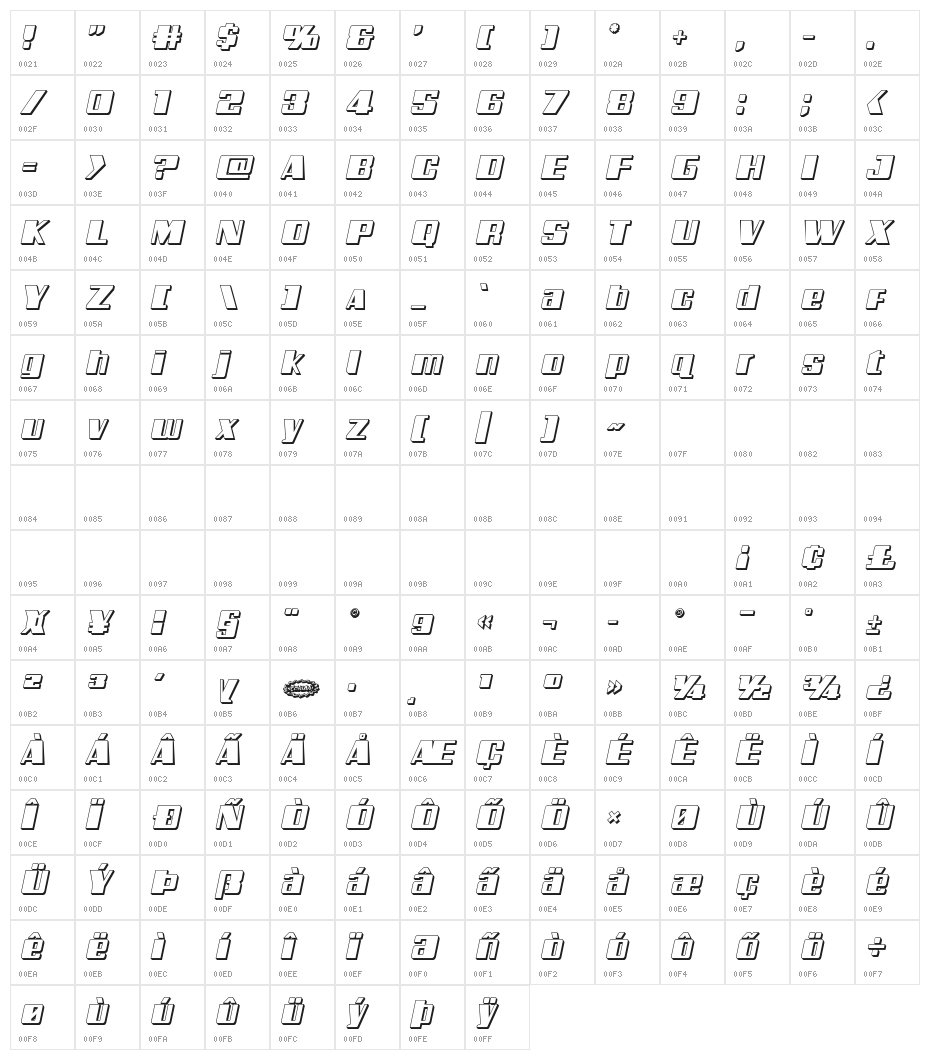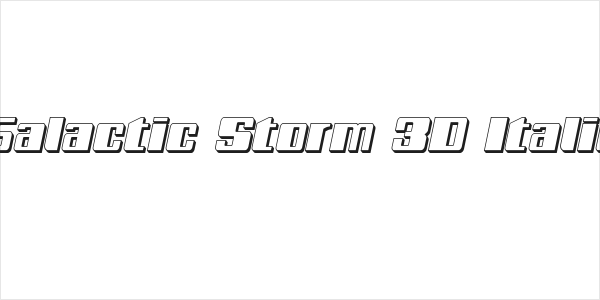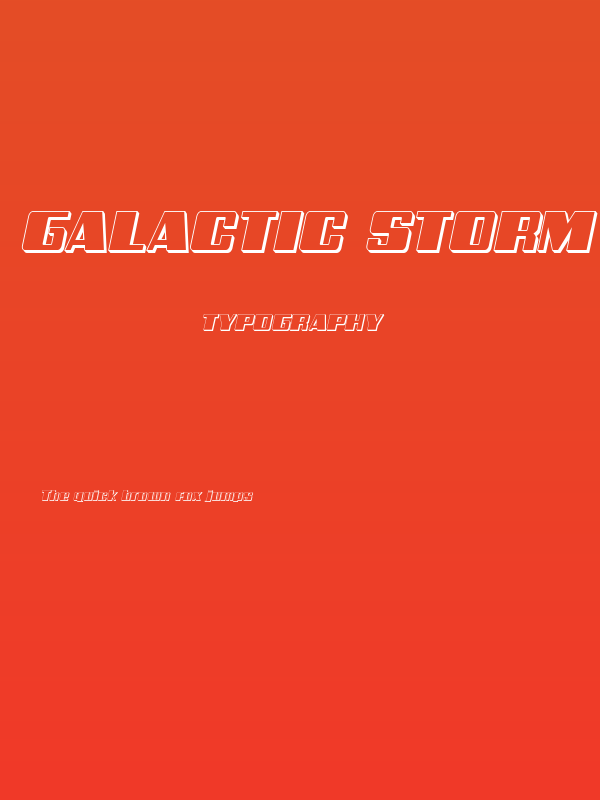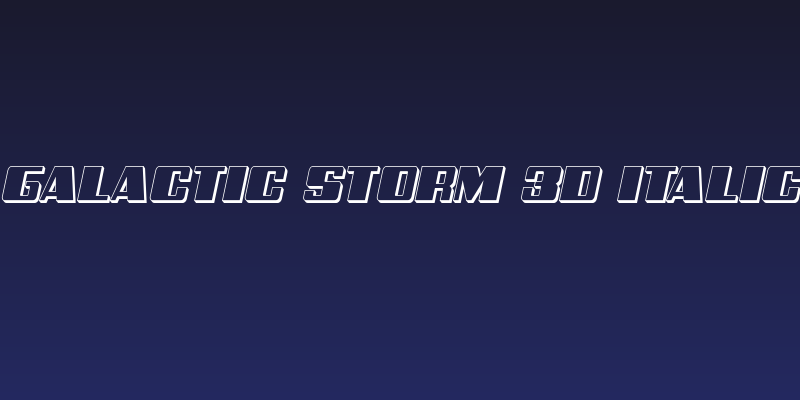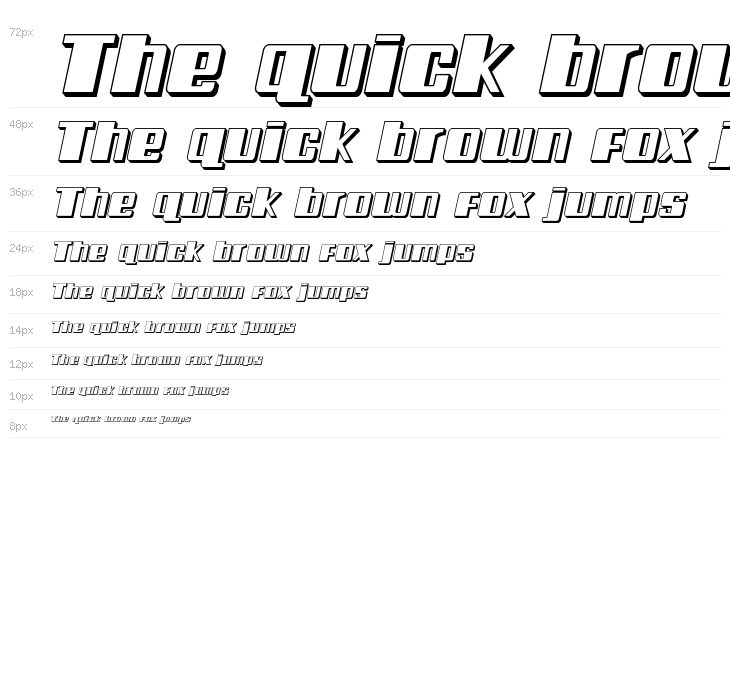
Galactic Storm 3D Italic Font
Galactic Storm 3D Italic Description
This font features a bold, three-dimensional design with a futuristic and dynamic appearance. The characters are italicized, adding a sense of motion and energy. Each letter is outlined, creating a striking contrast between the inner and outer edges. The font's geometric shapes and sharp angles give it a modern and edgy feel, suitable for projects that require a bold statement. The uppercase and lowercase letters maintain a consistent style, while the numerals and special characters complement the overall aesthetic. This font is ideal for eye-catching headlines, posters, and branding materials that aim to capture attention with a modern twist.
| Proposed Projects | Ideal for sci-fi themed posters, video game titles, and futuristic branding. |